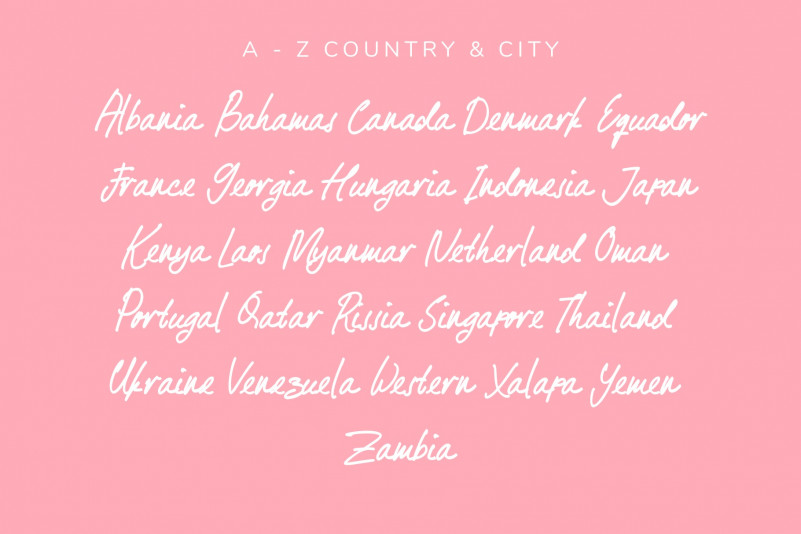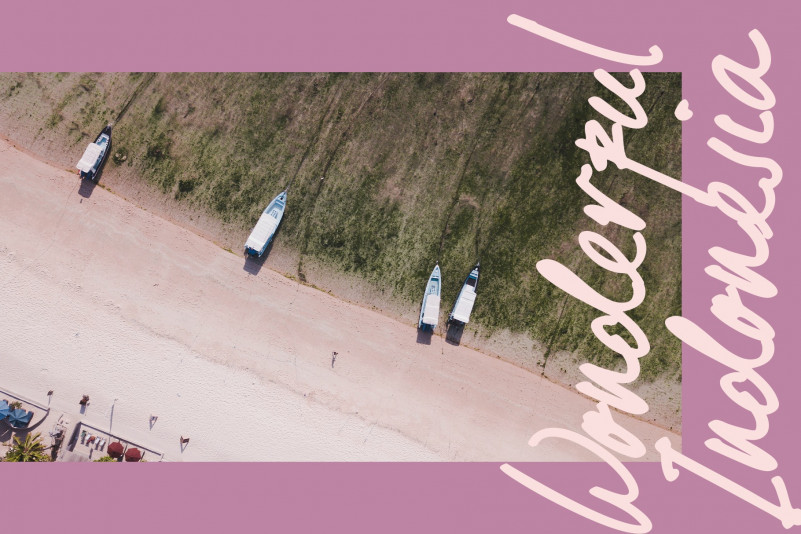
Maillove Handwritten Font
Maillove Handwritten Font is very elegant font. It has multi purpose , specially for you business need like a signature, watermark, business card, photography, logo, and any other elegant designs.